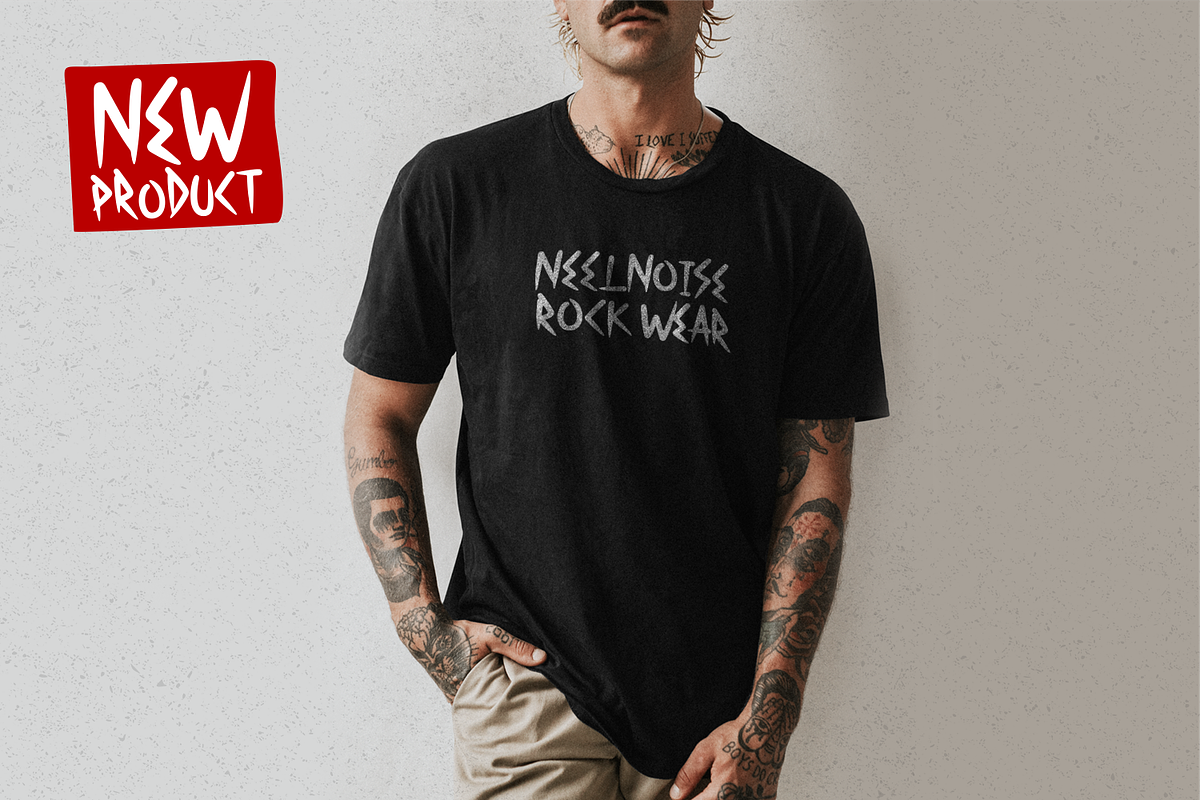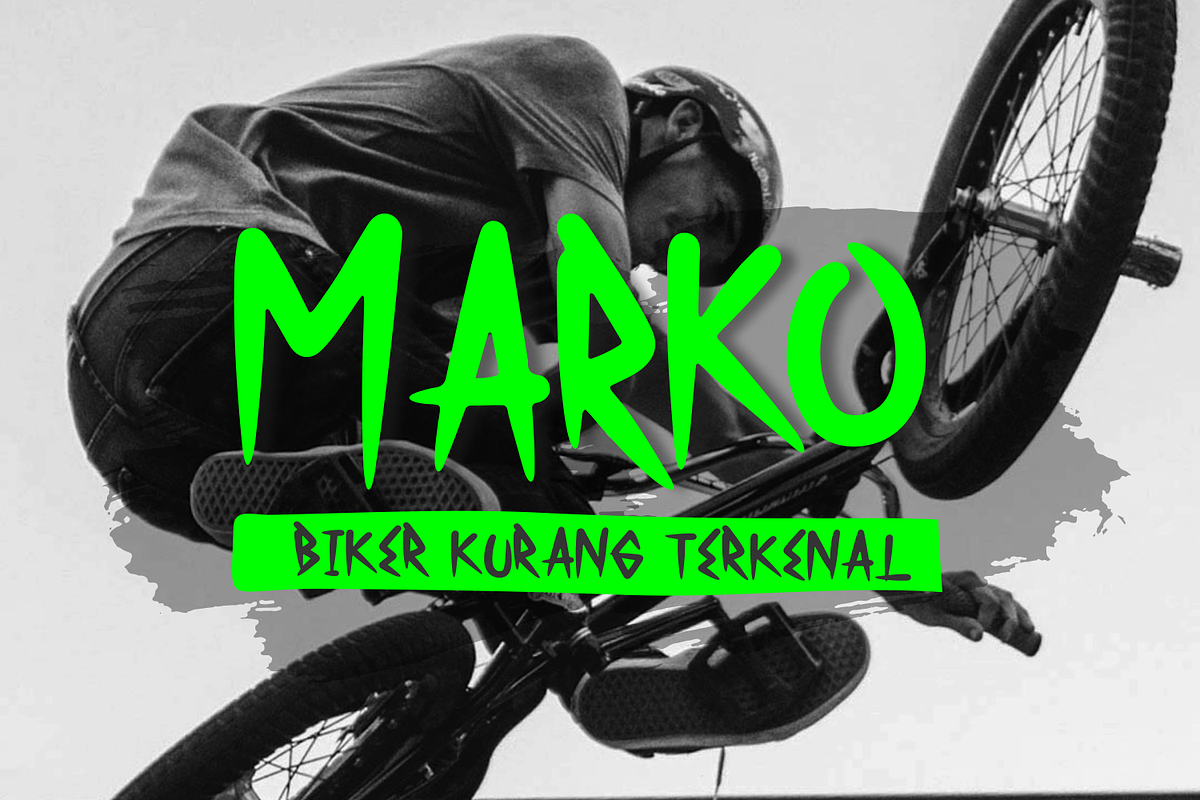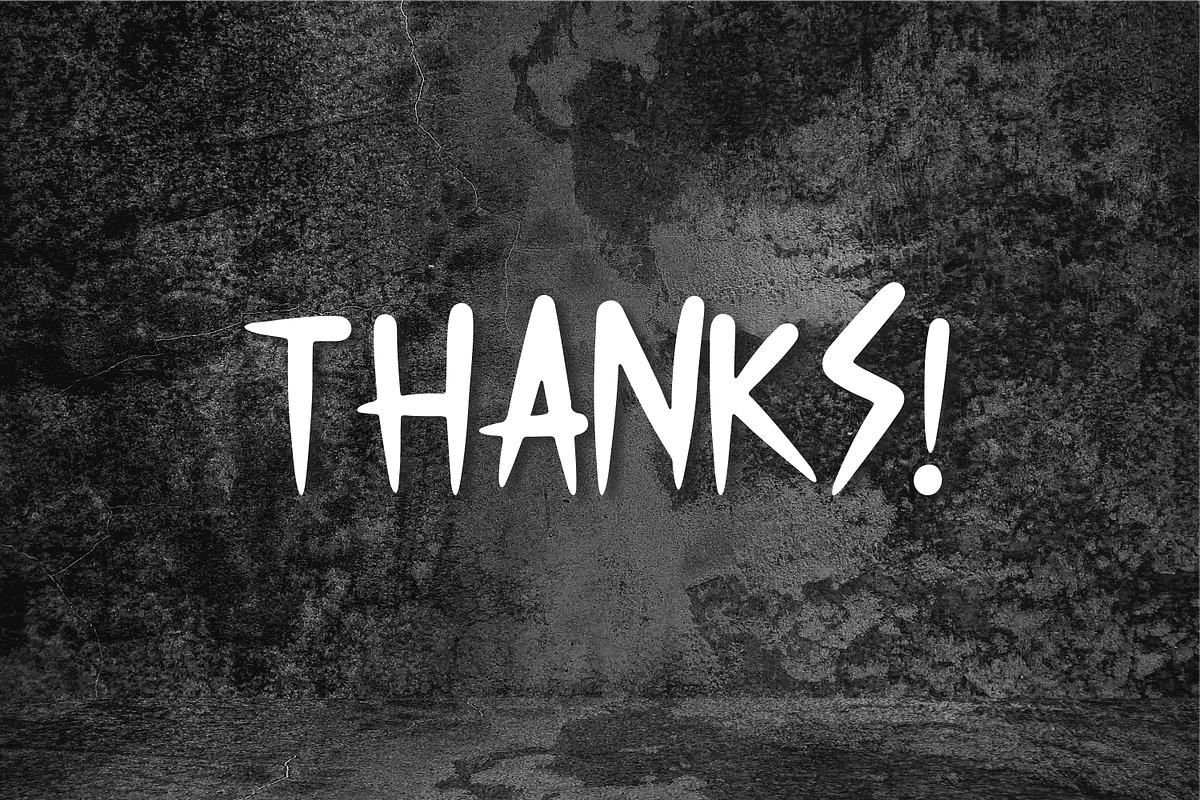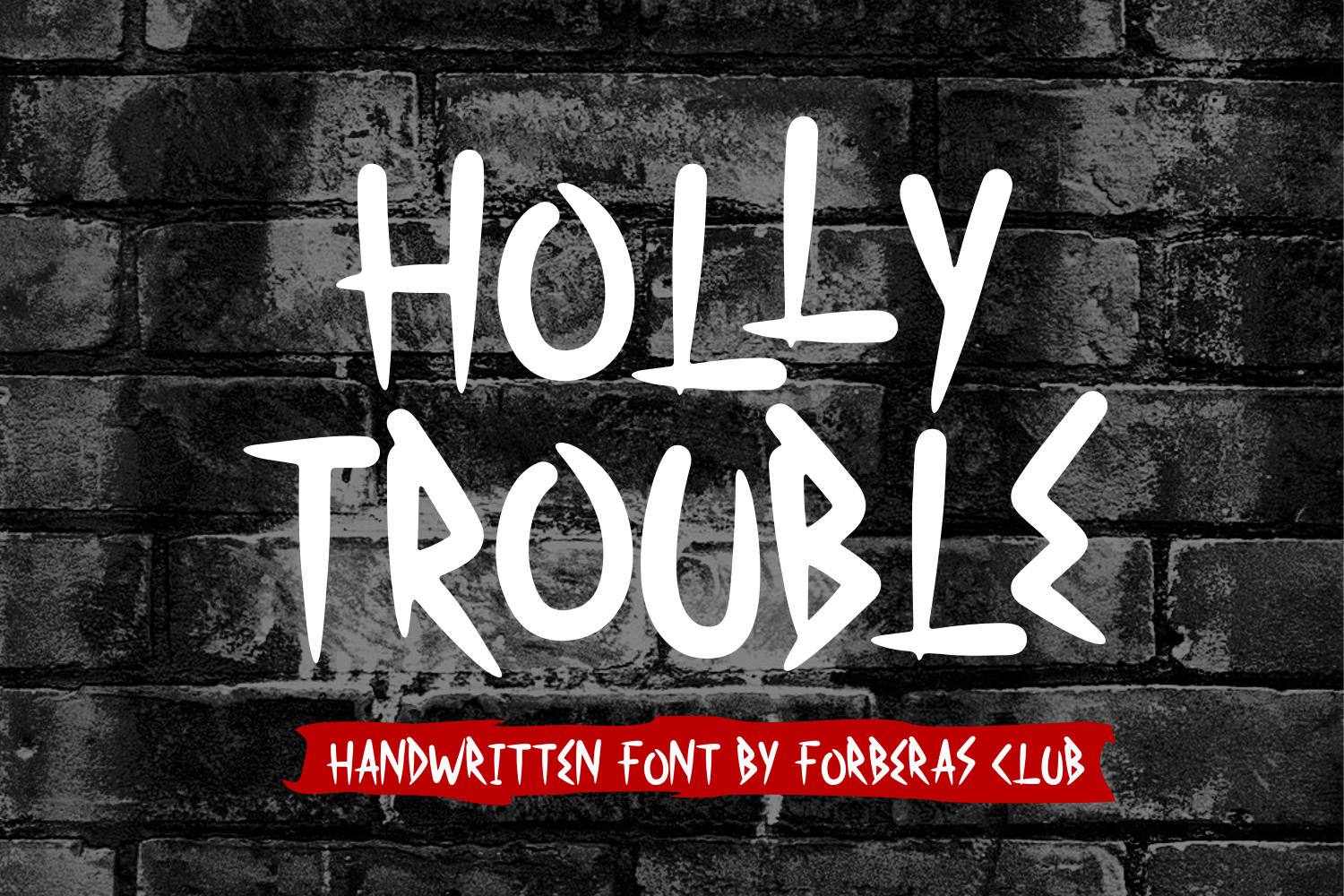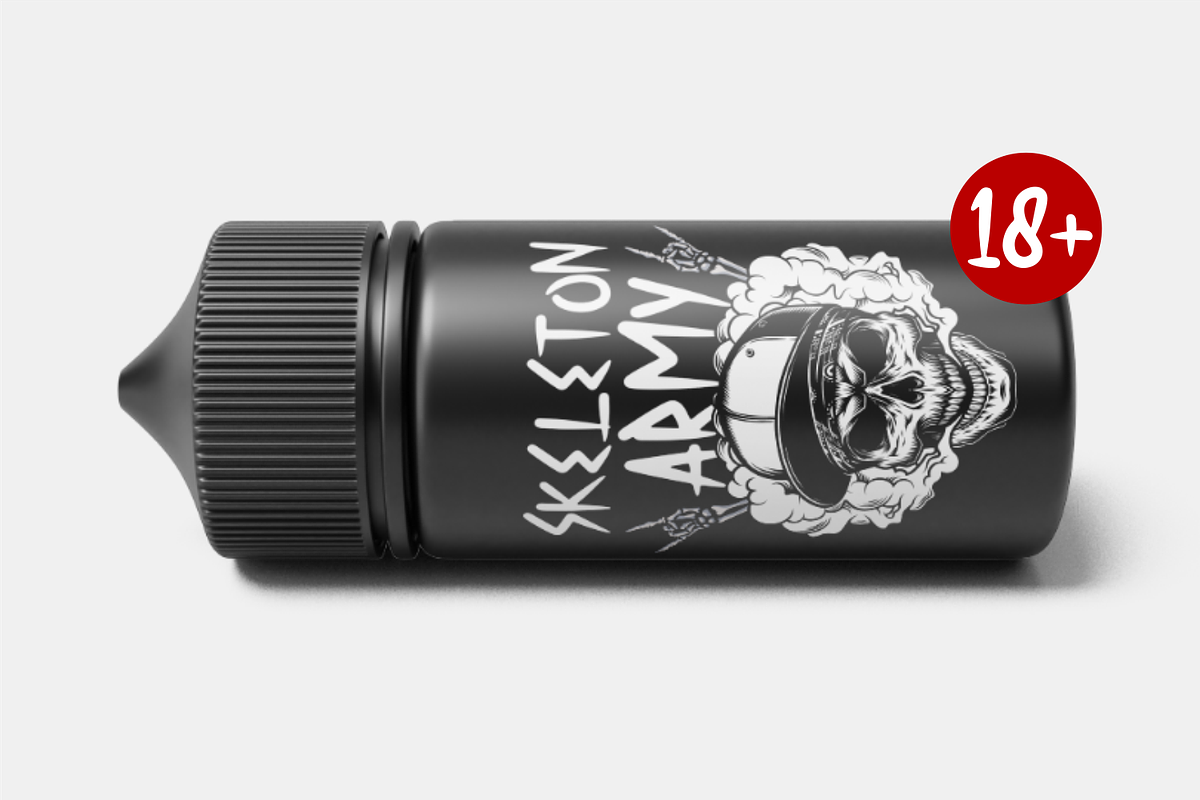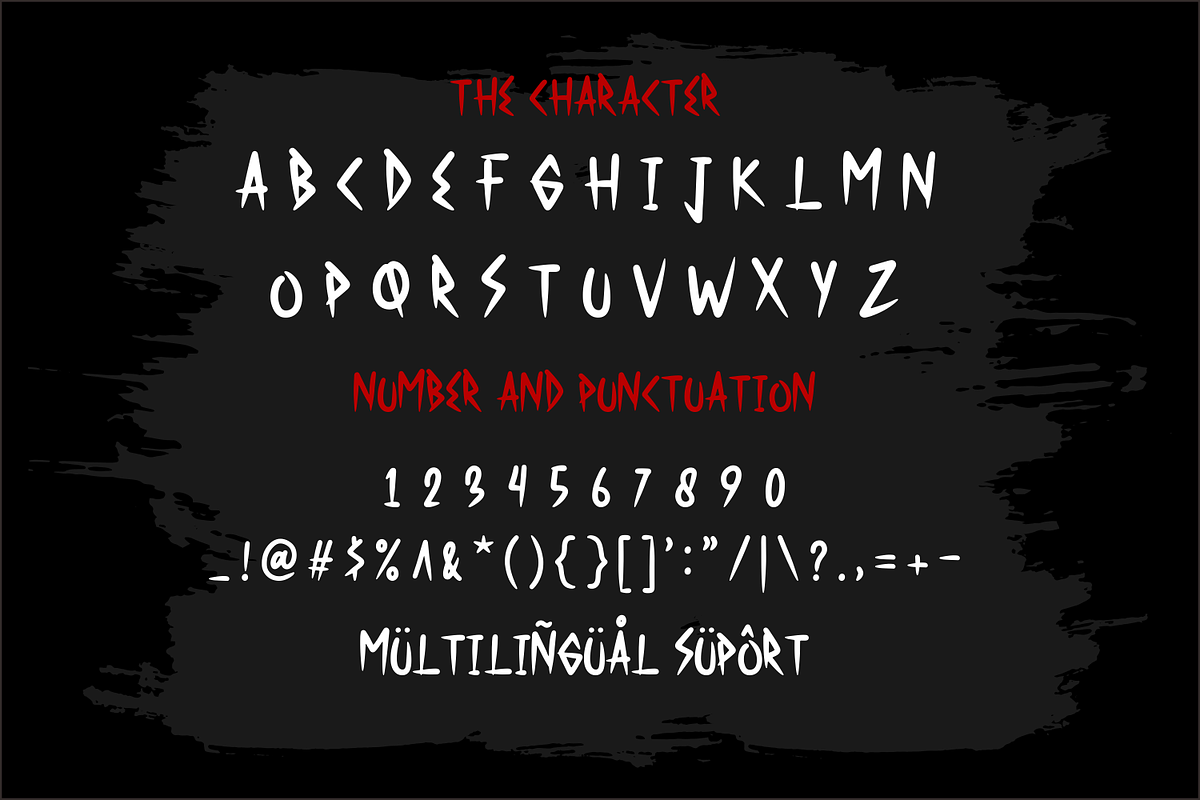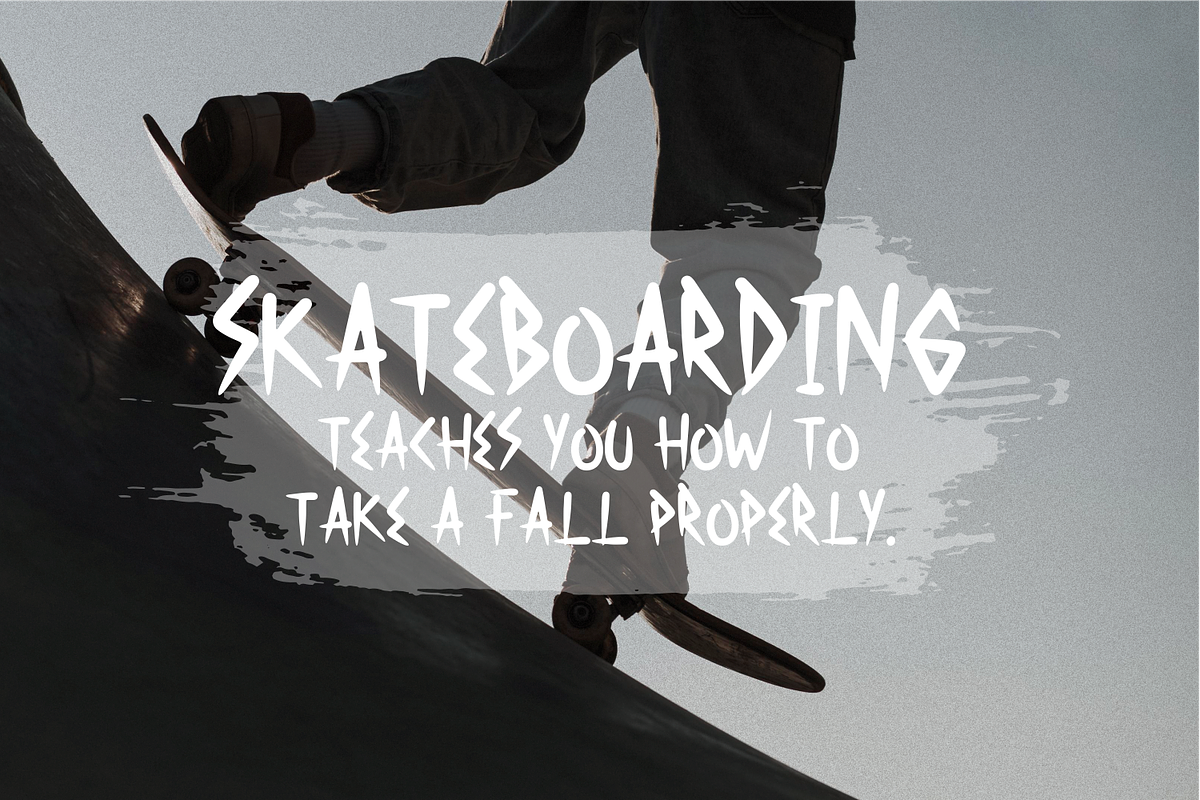
Holly Trouble | Handwritten Font
Introducing Holly Trouble by Forberas
it's perfect for your headings, title, branding project, magazine, invitation, wedding, logos, ads, printed quotes, packaging, and even your website or social media branding.